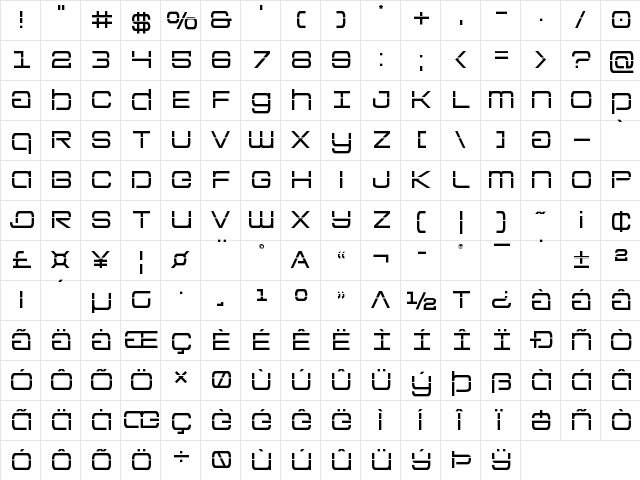
Colony Marines Laser Regular
Design Context for Colony Marines Laser Typeface
Colony Marines Laser offers clean, dependable letterforms without strong stylistic allegiance, making it a practical choice for designers who need flexibility.